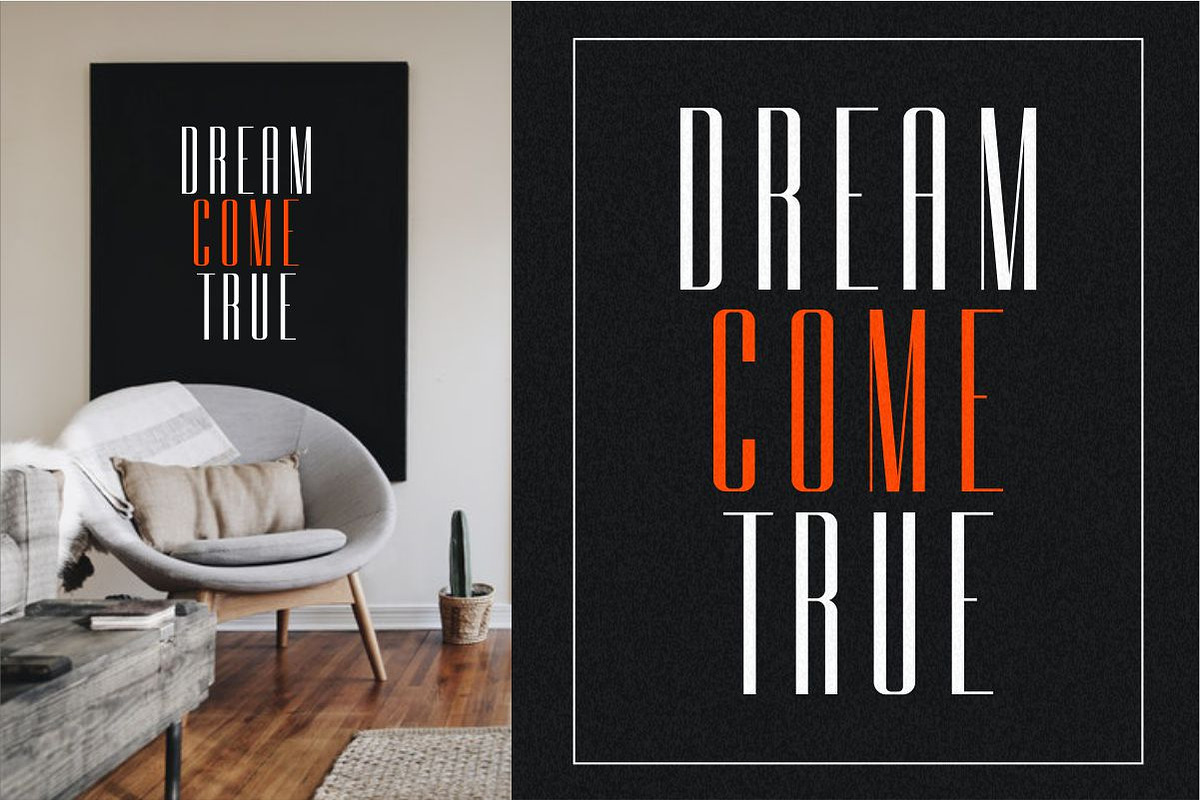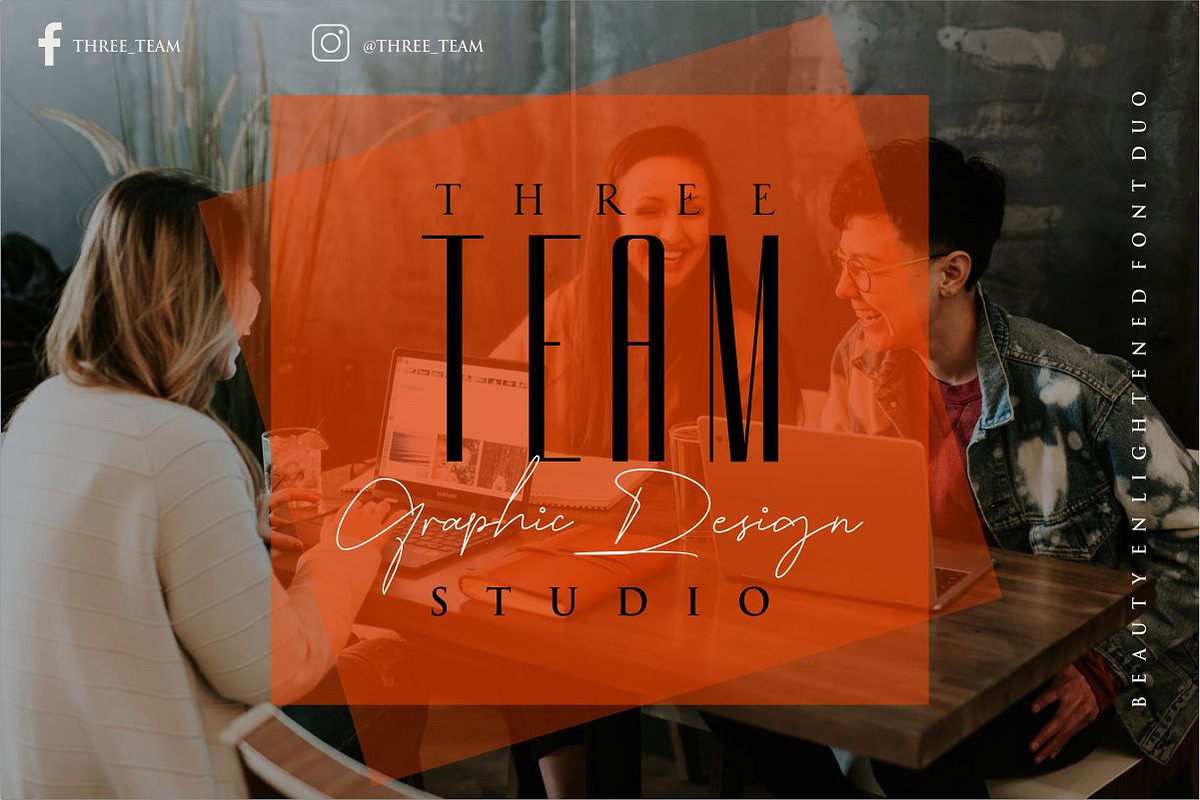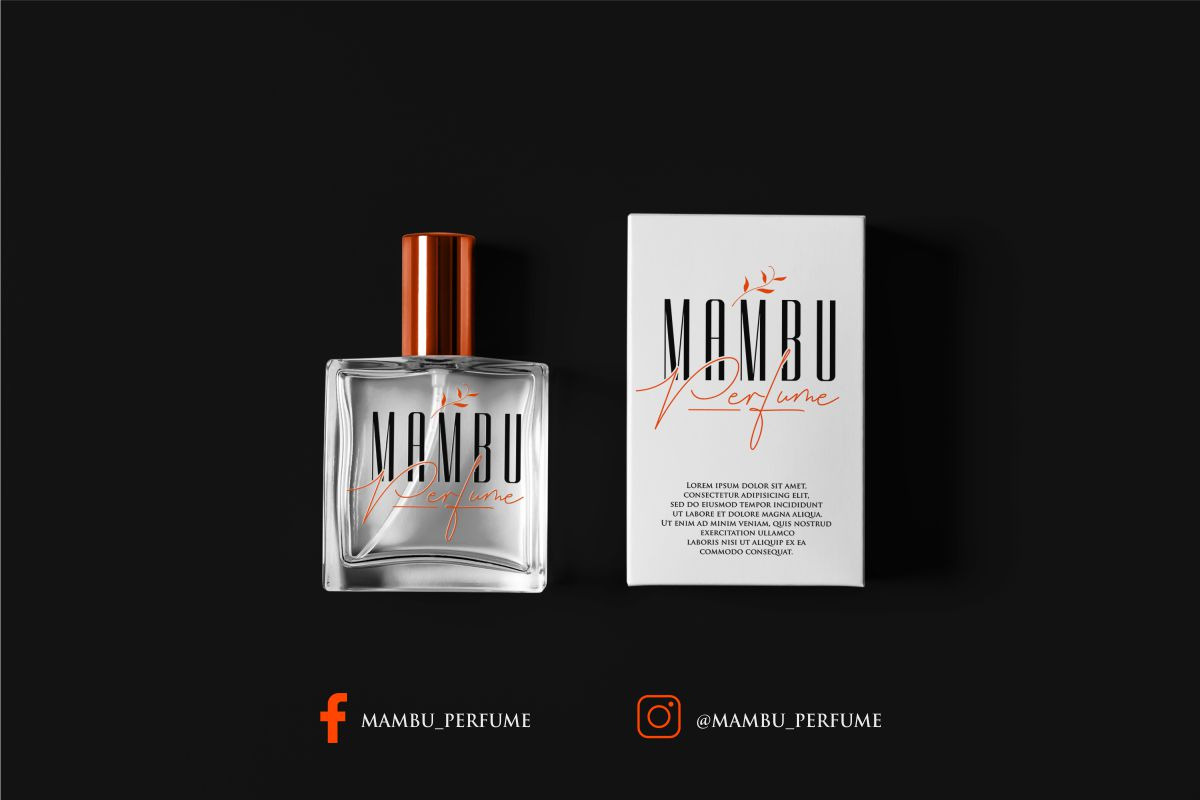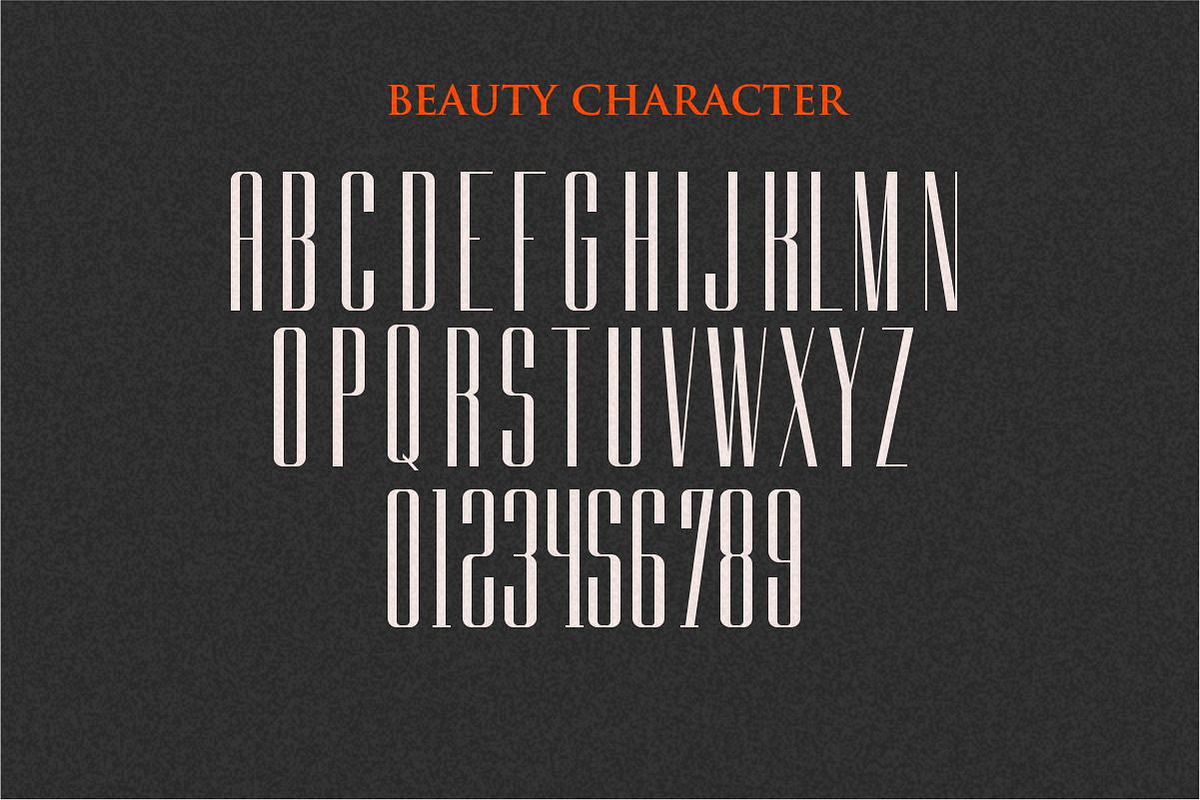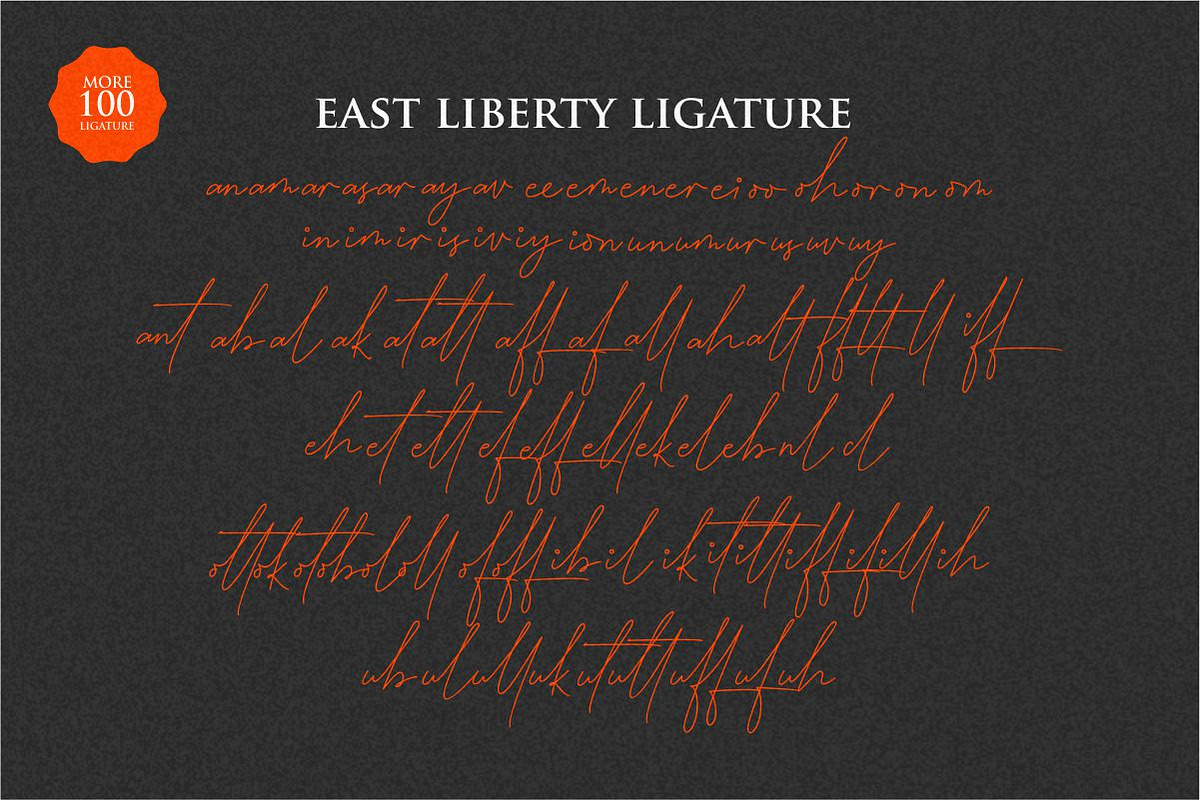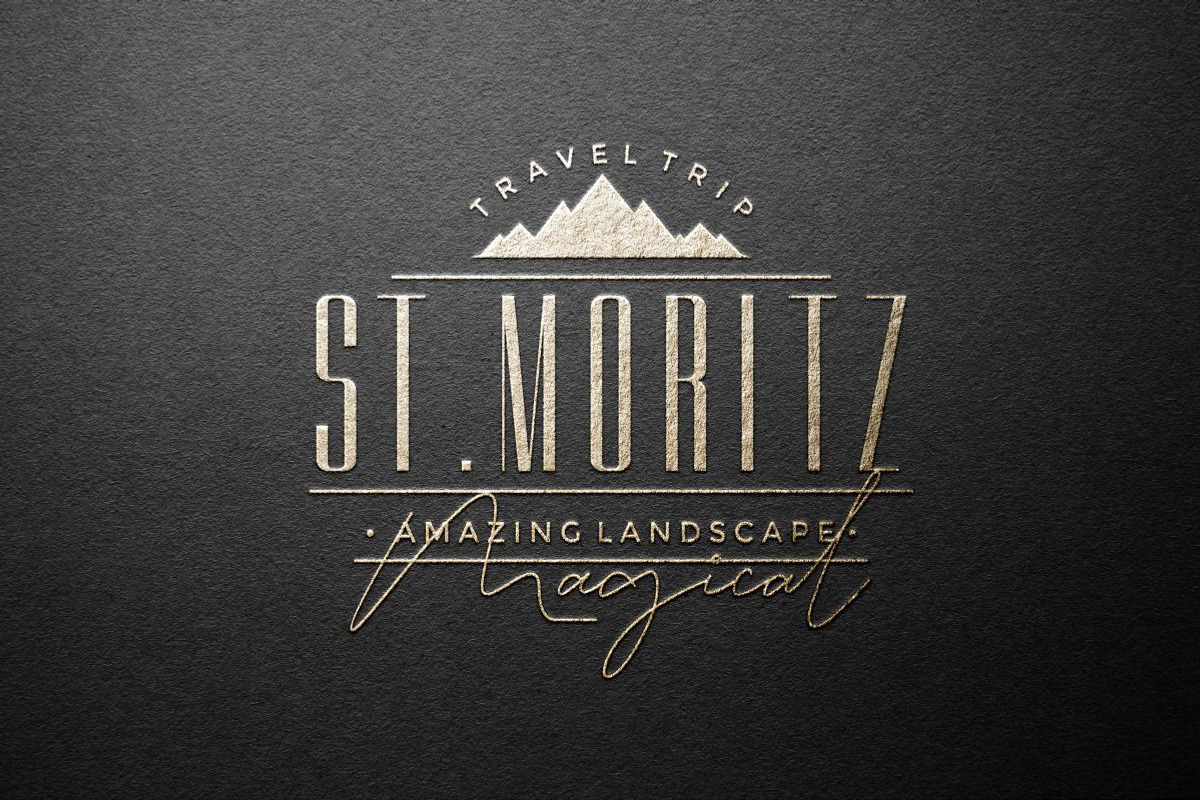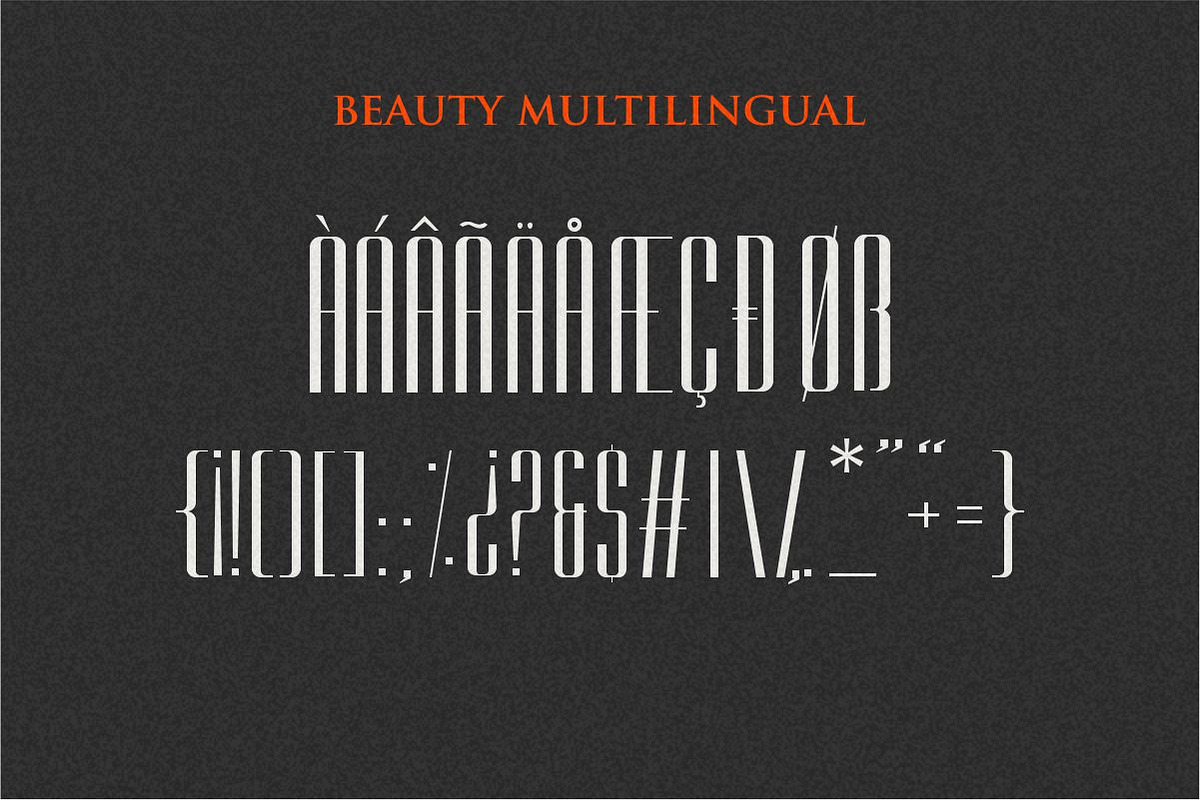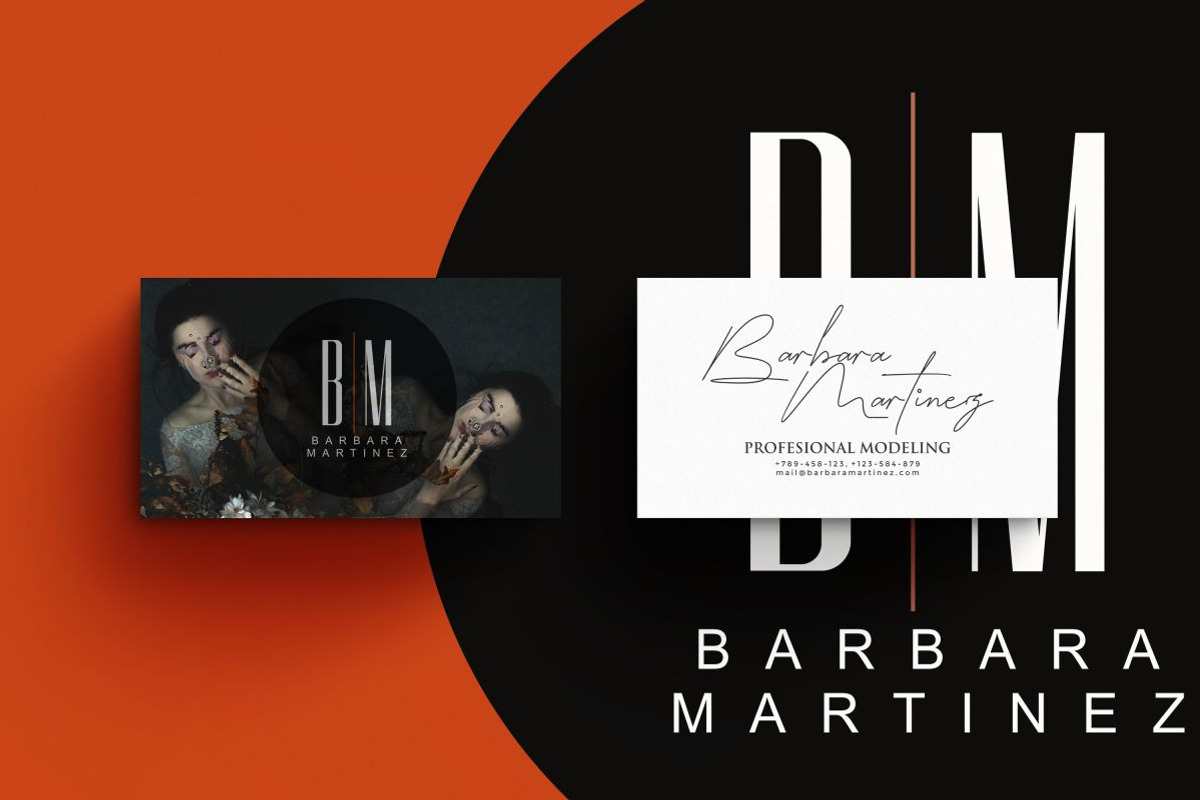
East Liberty | Thin Signature & Sans
introducing our newest font duo with the name East liberty thin signature and sans serif, this is a duo between a modern script signature and sans serif condensed which is perfect for creating logos, brands, tshirt, photographic watermarks, beauty products, magazine covers, magazine content, quotes and more.
The font signature is enlightened with more than 100 ligature that you can see in previews, and support it in various languages.and font beauty is a minimalist condensed sans serif font with a proportional size that is suitable for the production of mimalist products.
- East Libertysans serif condensed**include, numbers, punctuation,alternates, and it also supports other languages :)
- East Liberty signature/ modern script was built with OpenType features and includes more 100 Ligature, numbers, punctuation,alternates, and it also supports other languages :)
Great font pairing! The "kit" includes 2 fonts (1 handwritten + 1 capitals) that combine really well and they are delivered in 3 formats: .otf , .ttf and .woff. Besides, they are very complete fonts. The handwritten includes a big amount of beautiful ligatures but, above all, their main point is that both fonts include all accents and special letters from european languages like french or spanish. Great work!